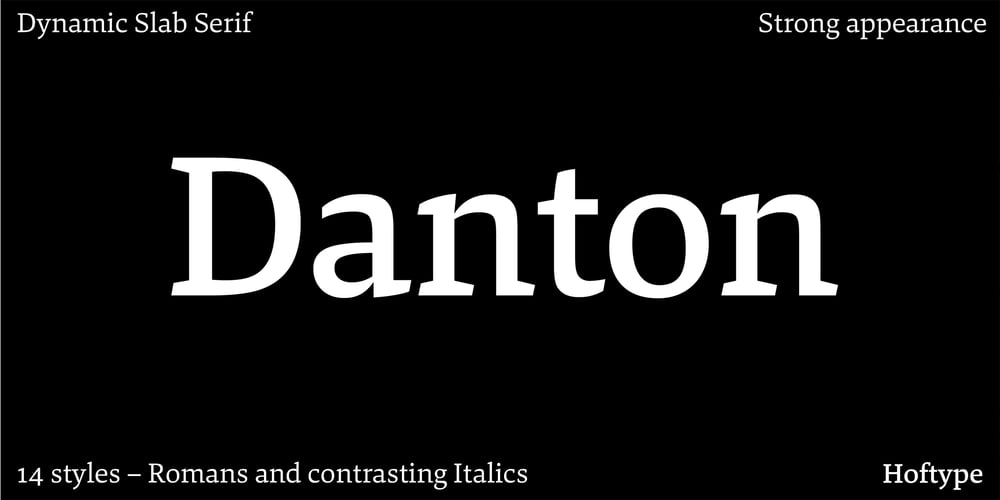
Danton Font Family was designed by Dieter Hofrichter and published by Hoftype. Danton contains 14 styles and family package options. Danton is a serif dominated face with a crisp and distinct graphical flavor. Designed especially for use in magazines and newspapers, It is superb in headlines and, because of its solid structure, it is also an excellent choice for text applications. The Danton family consists of 14 styles and is well suited for ambitious typography. It comes in OpenType format with extended language support. All weights contain small caps, ordinals, ligatures, proportional lining figures, tabular lining figures, proportional old style figures, lining old style figures, matching currency symbols, fraction- and scientific numerals, and arrows.